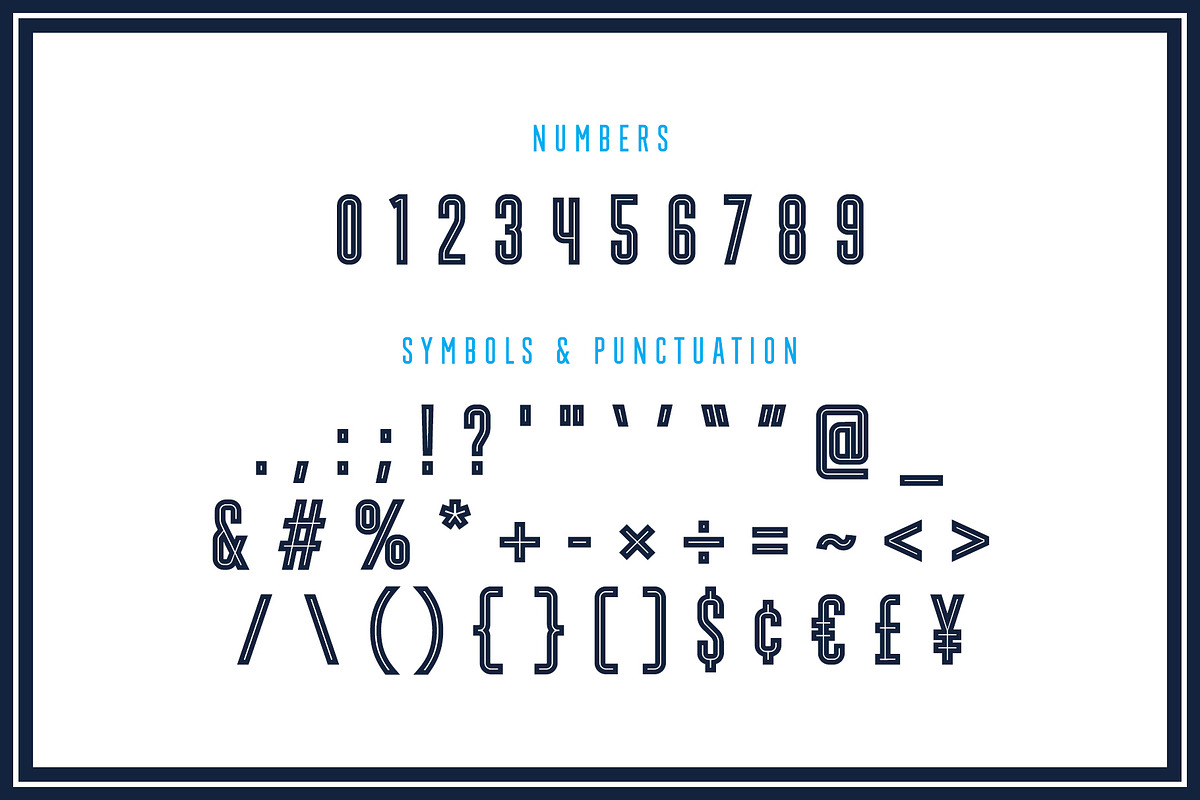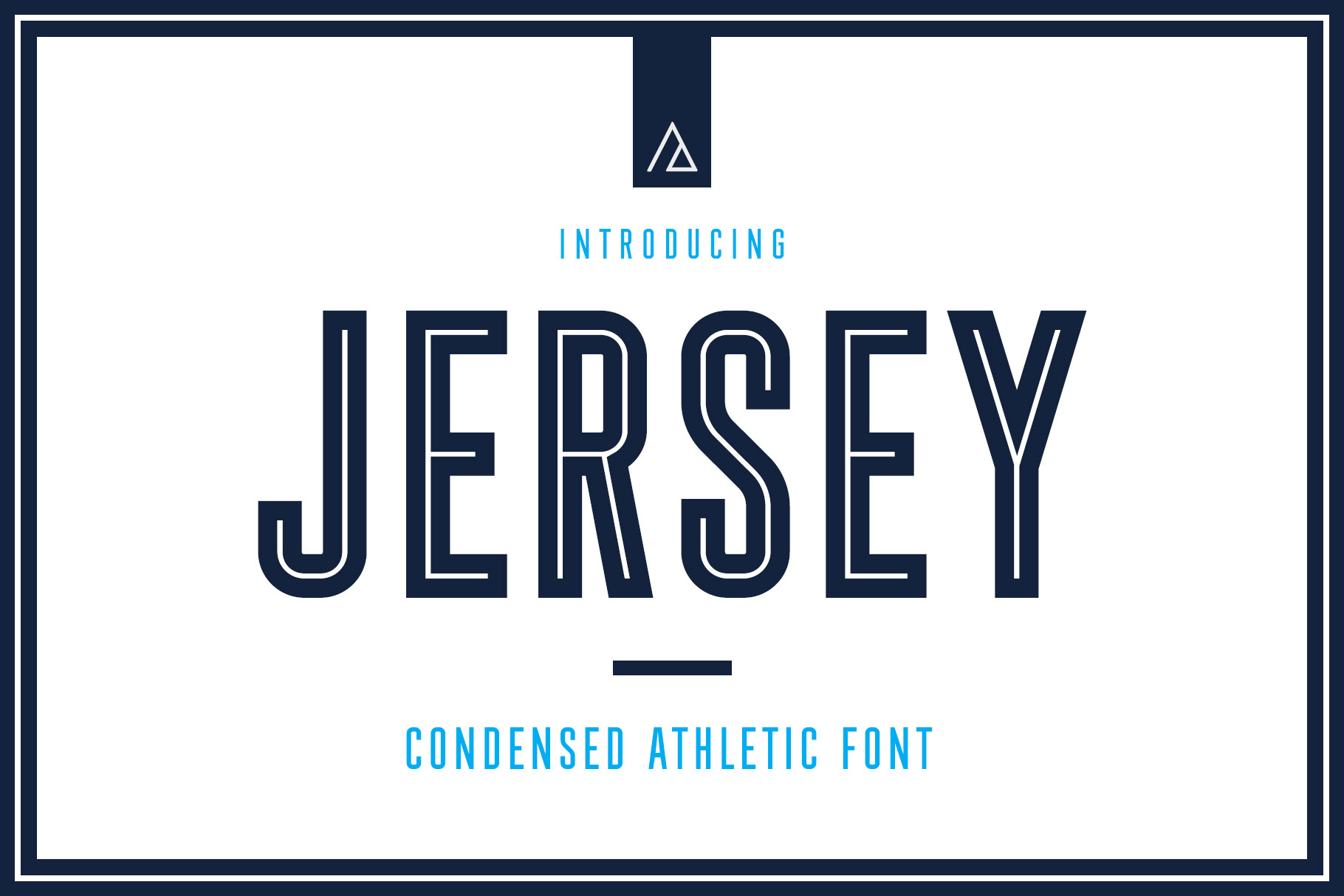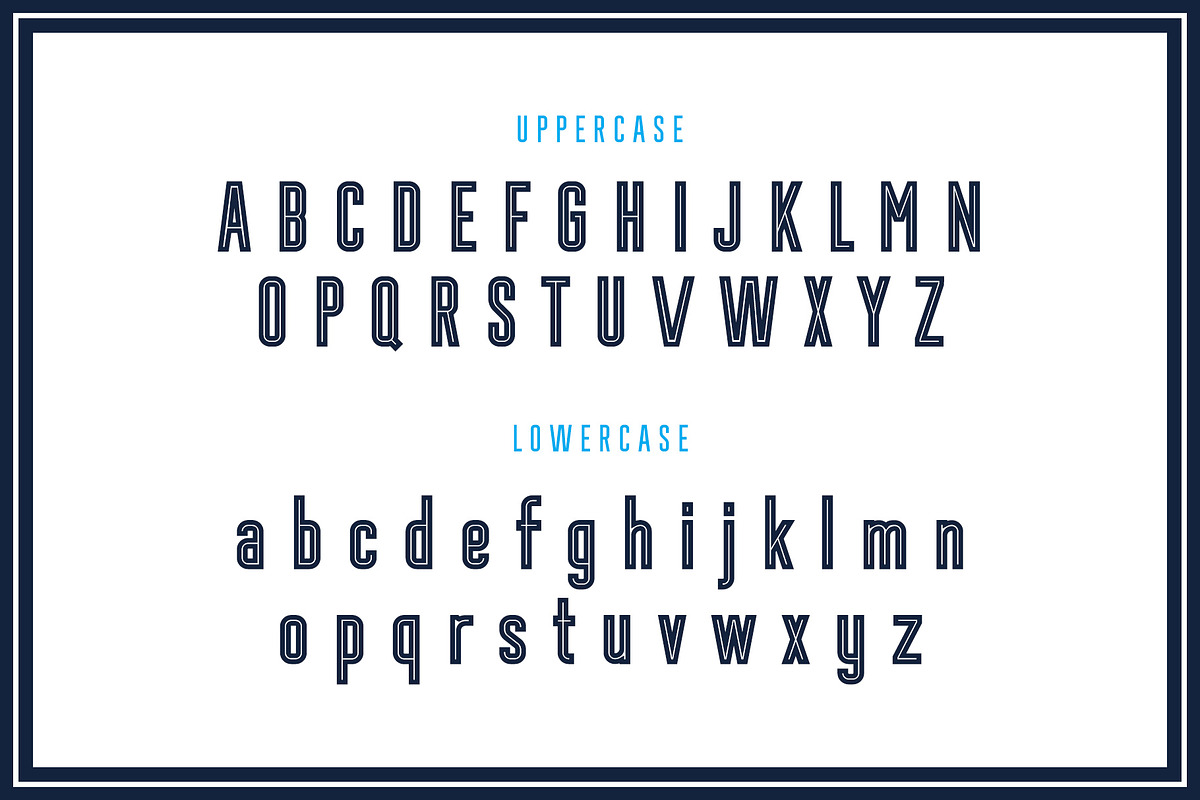
Jersey - Condensed Athletic Font
Jersey is a condensed sans-serif typeface, inspired by college sports and football (soccer) jerseys. Features both outline and regular solid fill versions. Perfect for titles and headlines, included are uppercase and lowercase letters, numbers, symbols and European language support.